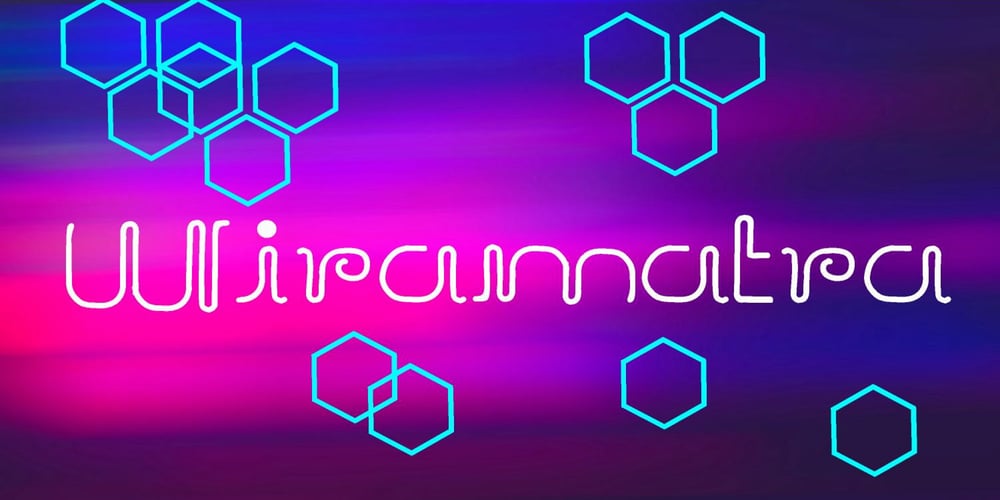
Wiramatra
Wiramatra font
Wiramatra Font Family was designed by bsmbang wisudyantoro and published by Beewest Studio. Wiramatra contains 1 styles and family package options. Wiramatra is a modern Wire-Metric style font. This neat display font with unique wire cable on each character. Dainty and joyful, this font will be ideal for Sci fi Novel Tittle book, or writing techno modern wedding style invitations, cards or any other design that may need a techno futuristic romantic, personalized touch!